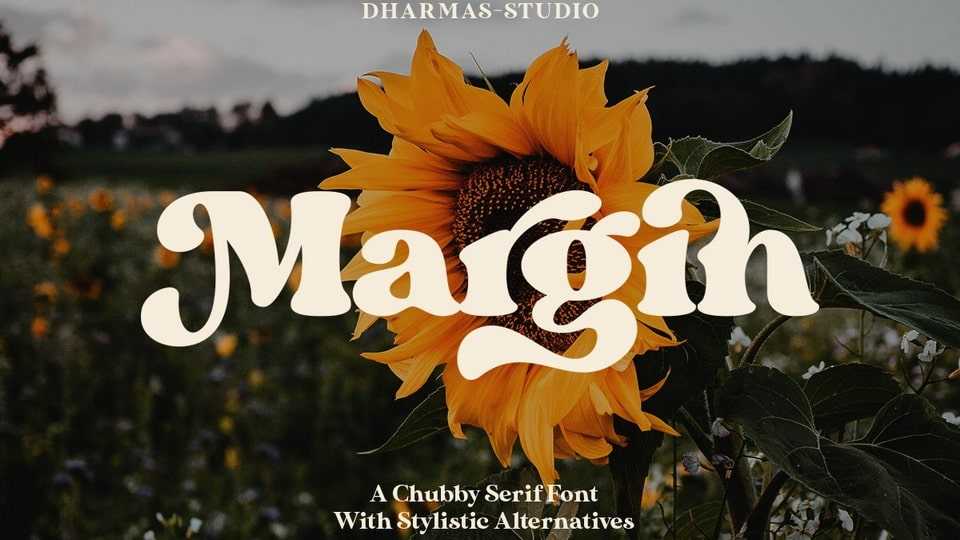
Download Margin font, a stylish typeface that is both retro and bold font. It’s thick curves give a 70s groovy vibe with the serifs bringing it slightly back to traditional.